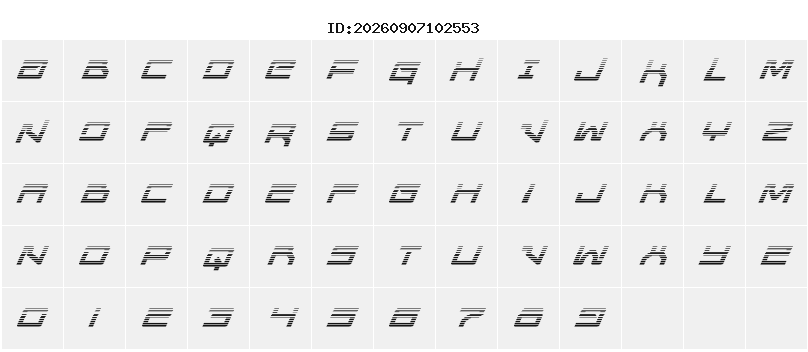
• Font Name: United Planets Gradient Italic
• Full Font Name: United Planets Gradient Italic
About United Planets Gradient Italic.ttf
United Planets Gradient Italic.ttf is a modern, elegant sans-serif font designed for ultimate readability and visual harmony. Perfect for branding, headlines, web design, and print materials.